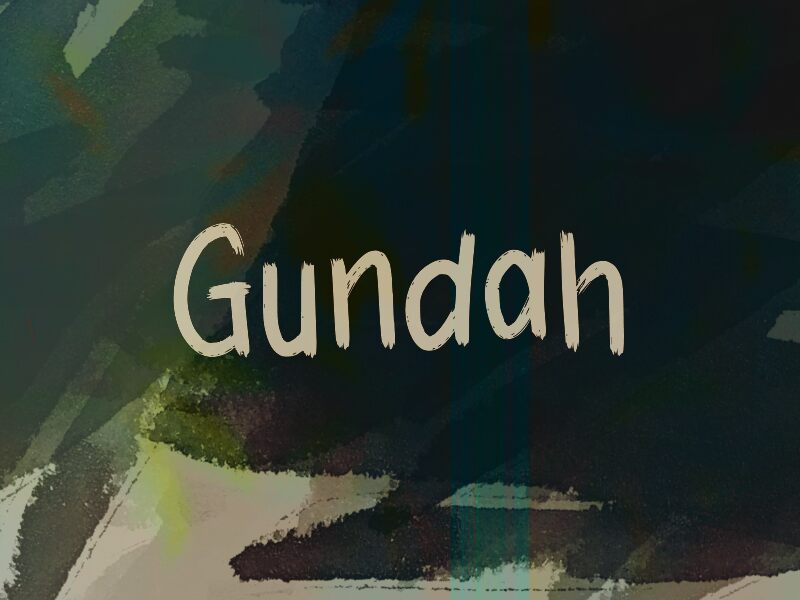
Gundah
Gundah, a captivating brush font crafted by wep, exudes a raw, energetic essence. With its dynamic strokes and bold, expressive forms, this condensed typeface commands attention. Gundah's organic and untamed nature evokes a sense of movement and vitality, making it a visually striking choice for projects seeking a bold, handcrafted aesthetic.
Gundah's versatility shines through its ability to adapt to a variety of design contexts. Its condensed width and brushed character make it an excellent option for headlines, titling, and branding applications where a strong, impactful typographic presence is desired. Gundah's versatility also lends itself well to packaging design, editorial layouts, and even digital interfaces, where its distinctive flair can elevate the overall visual experience.